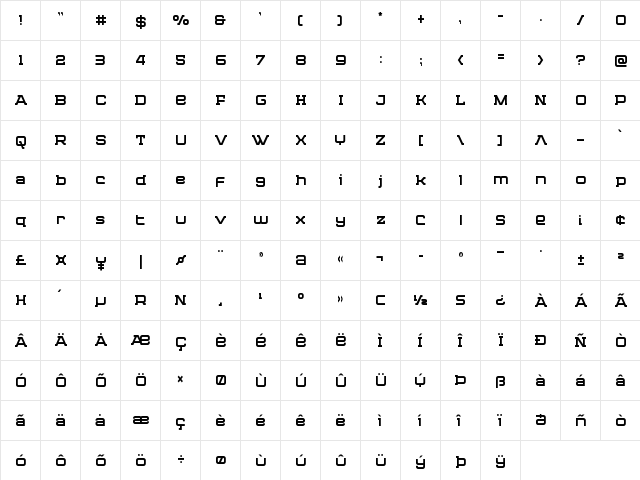
Cydonia Century Condensed Condensed
Design Context for Cydonia Century Condensed Typeface
Cydonia Century Condensed takes a measured approach to typography — its balanced proportions and neutral character make it a reliable workhorse for both digital and print work. The condensed width makes it efficient for tight spaces without sacrificing legibility.